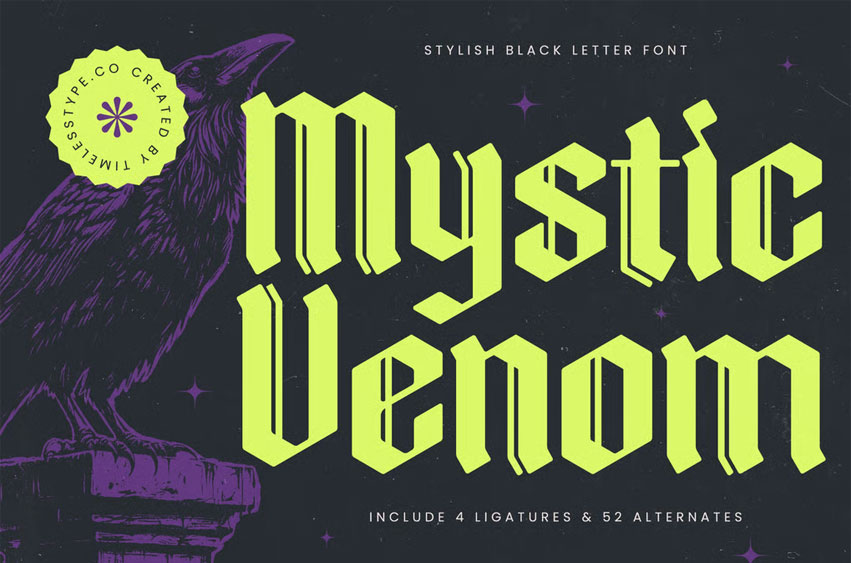
Mystic Venom Font
Mystic Venom Font is a stylish blackletter display font infused with dark elegance and modern gothic energy. Featuring 4 ligatures and 52 alternates, this typeface delivers razor-sharp forms, dramatic strokes, and a bold medieval flair — perfect for posters, album covers, tattoos, gaming graphics, streetwear branding, and any design seeking a mysterious, venomous edge.
Designed to be striking yet readable, Mystic Venom blends traditional blackletter craftsmanship with contemporary styling, making it ideal for powerful headlines and expressive visual identities. Its alternates give you full creative control to craft intense, atmospheric typography.